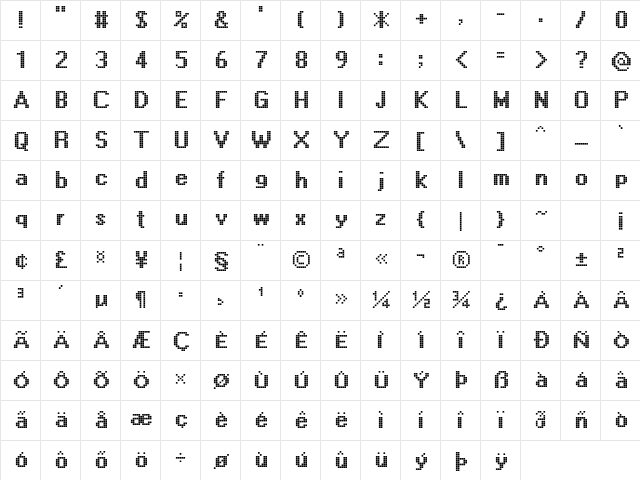
DisplayOTF Regular
| Foundry | Denis A Serikov |
| Designer | Denis A Serikov |
Design Context for DisplayOTF Typeface
DisplayOTF brings ornamental detail and strong personality to headlines and identities, where visual impact matters more than quiet functionality.
Font Pairing: Pair with a clean neutral sans-serif for body copy to let DisplayOTF's character lead without overwhelming the composition.
Pro Tip: Use DisplayOTF exclusively at display sizes — it was designed to be seen, not read at length. Let a neutral companion handle body copy.